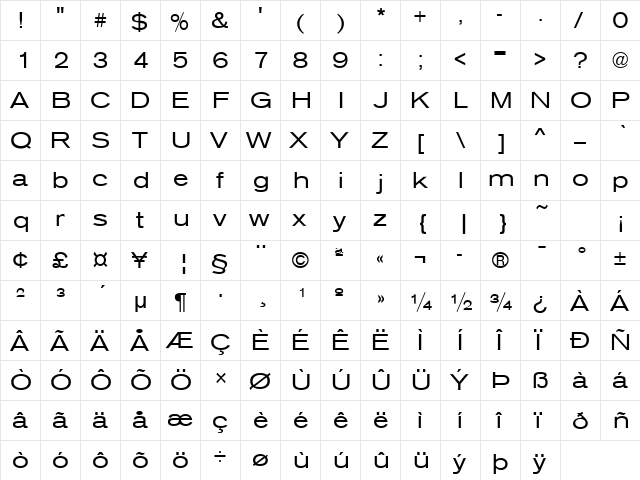
Sage Extended Regular
Design Context for Sage Extended Typeface
Sage Extended is a composed and adaptable typeface that performs quietly and consistently across a wide range of design contexts.